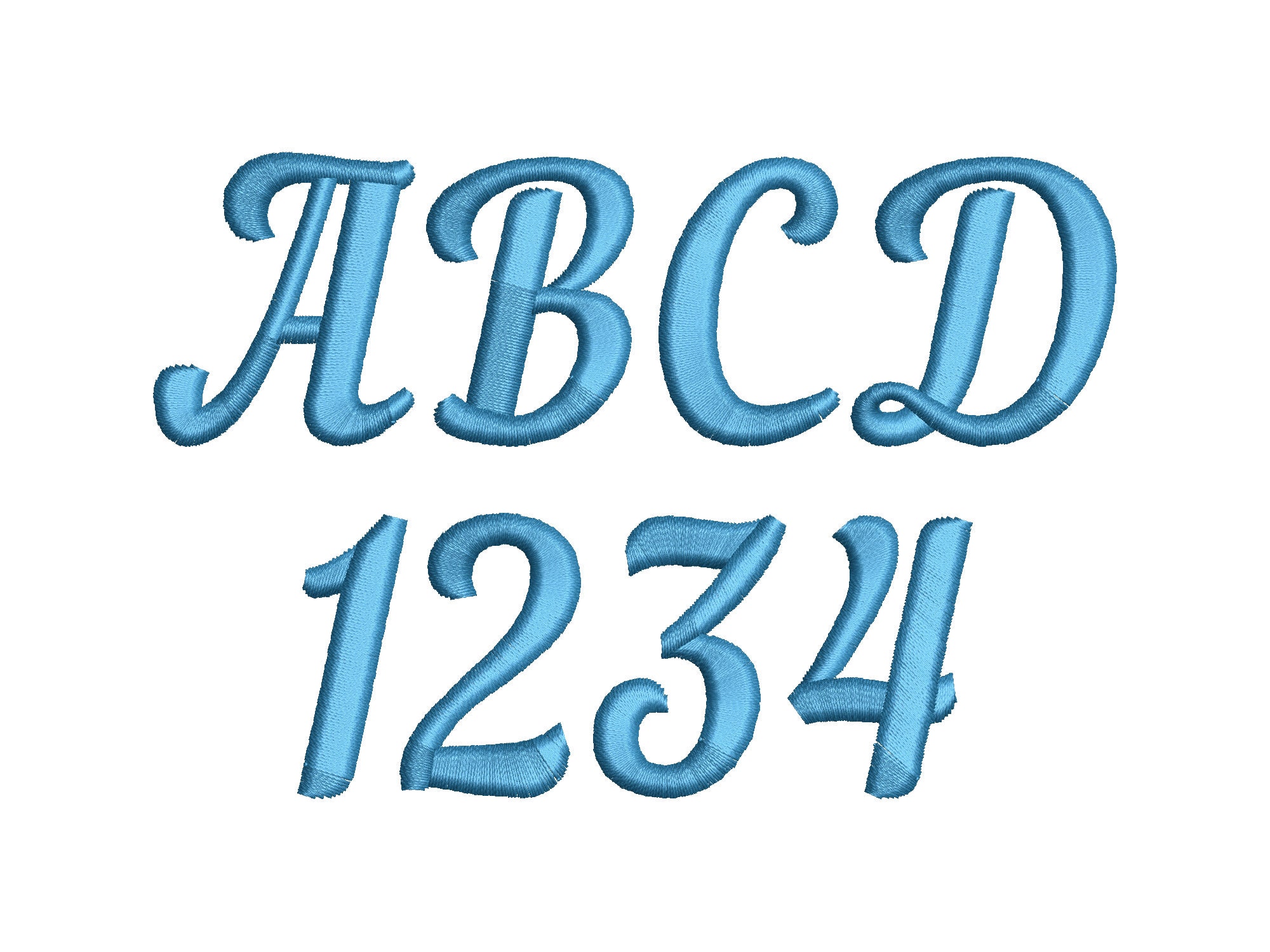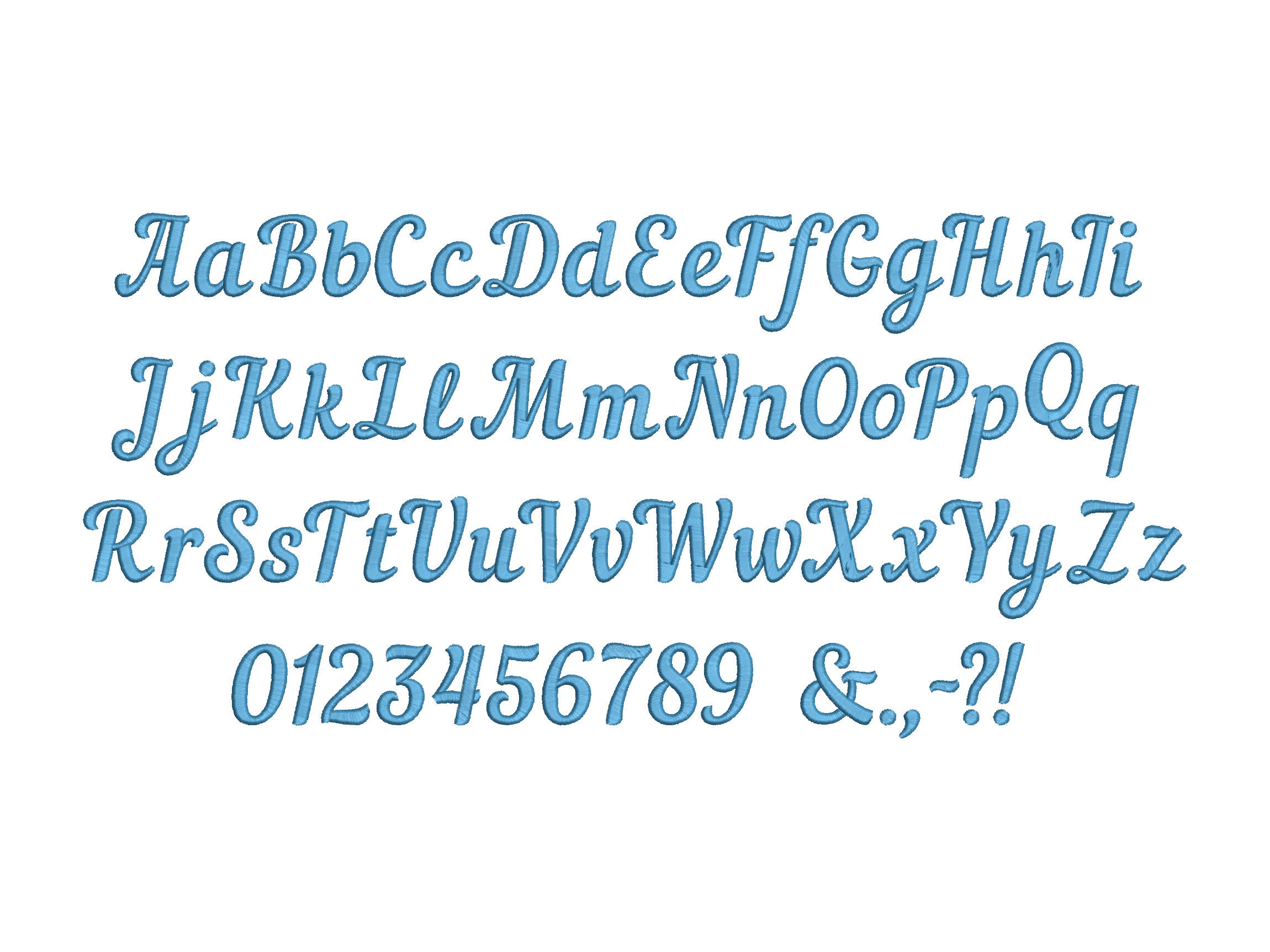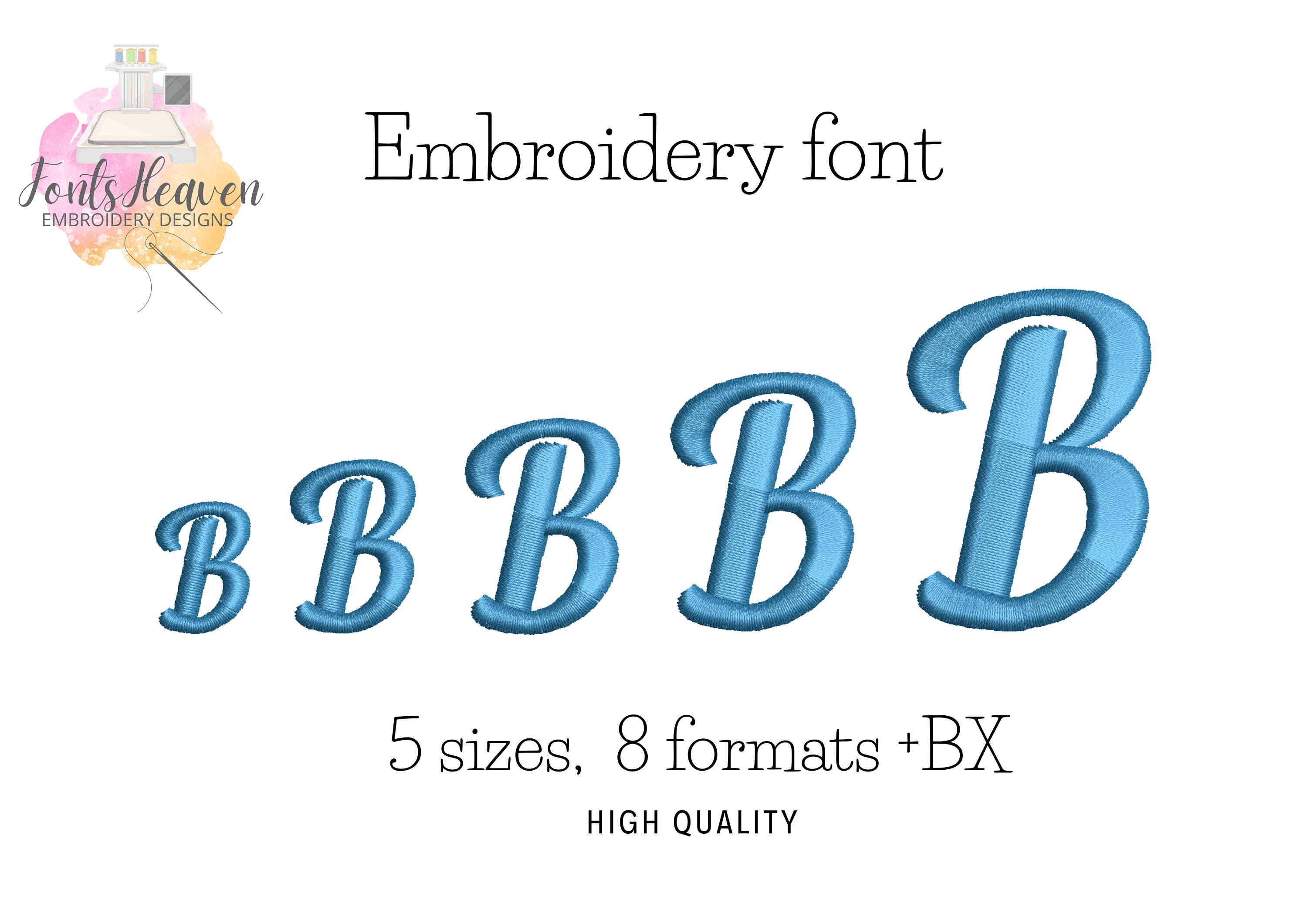
Satin Stitch cursive Font SportSwash sports team alphabet monogram machine embroidery designs mini sizes from 0.8 thru 2 inches, BX included
Uppercase and lowercase letters, numbers, and punctuation.